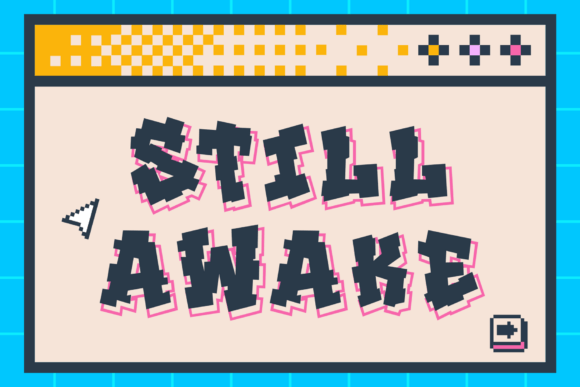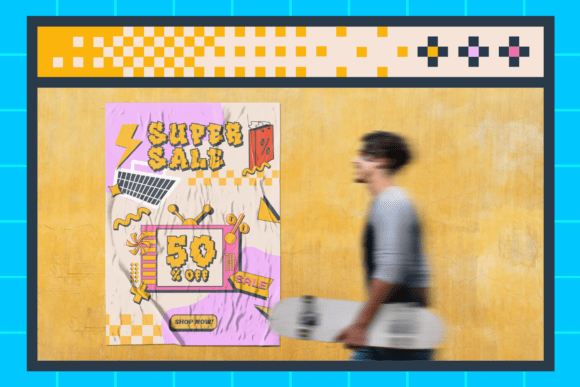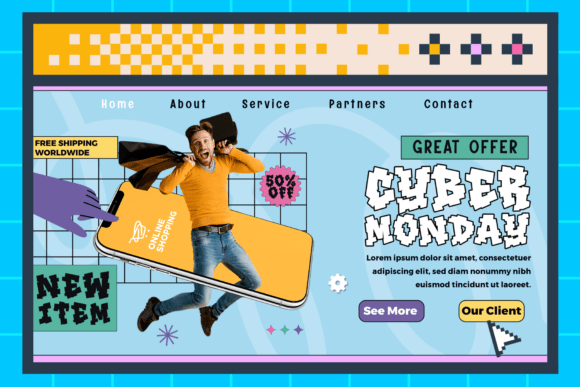
Introduction to Noise Block Font
Unleash creativity in pixelated prowess with Noise Block: an astounding graffiti-based display font that fuses the gritty spirit of urban street art with the energy of early digital artistry.
Immerse your designs in a typographic realm, chock-full of 90s arcade charm and echoing the blocky aesthetics of vintage computers Each Noise Block character is carefully crafted, built using pixel-like segments that create a playful yet powerful visual impact — strikingly unique, innovatively nostalgic, and perfect for projects seeking a daring edge.
Why Choose Noise Block Font?
Noise Block Font offers exceptional quality and versatility, making it a valuable addition to your design toolkit. Whether you’re creating for personal projects or commercial use, Noise Block Font delivers professional results.